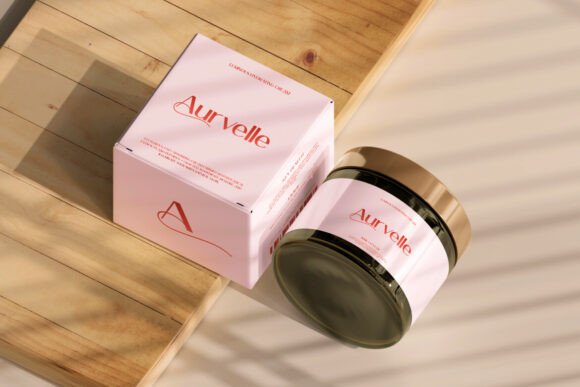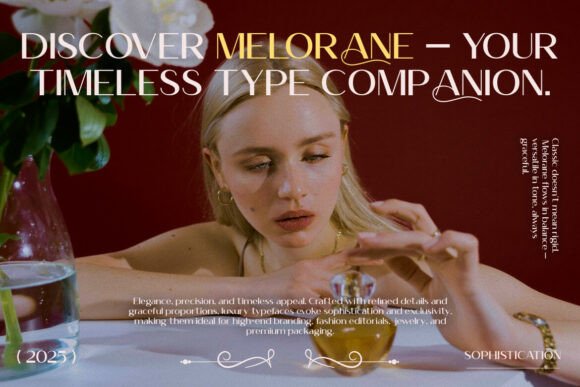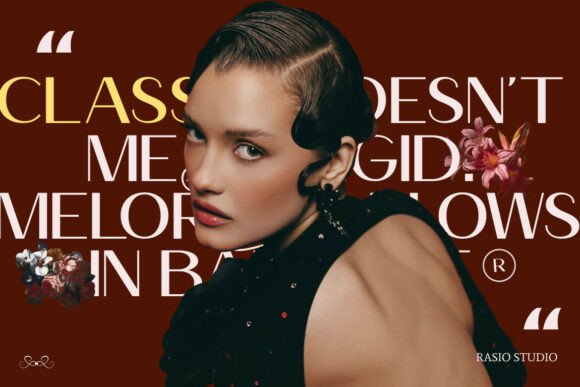
Introduction to Melorane Font Font
Fonts play a crucial role in design, and the Melorane Font font is a typeface that brings both character and versatility to any project. Whether you’re working on a branding project, a website, or a print design, the Melorane Font font offers a unique style that can elevate your work.
Melorane is a refined modern serif typeface designed with graceful curves and elegant letterforms.
Melorane is relevant for creative projects that require refined and sophisticated typography The elegant structure and smooth curves make it suitable for luxury branding, editorial layouts, fashion magazines, premium packaging, and promotional visuals where polished typography enhances visual identity and professional presentation.
Key Features of Melorane Font Font
Why Choose Melorane Font Font?
The Melorane Font font is more than just a typeface – it’s a design tool that helps you communicate your message with style and clarity. Its unique character set and versatile design make it suitable for a wide range of applications, from elegant invitations to bold headlines.
With its carefully crafted letterforms and balanced proportions, the Melorane Font font ensures readability and visual appeal across all mediums.
What makes Melorane Font font special?
The Melorane Font font stands out with its unique design, exceptional readability, and versatility across various design applications.